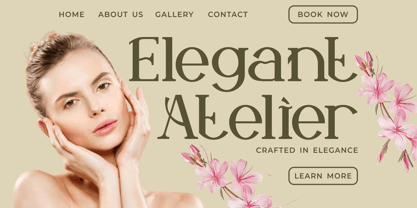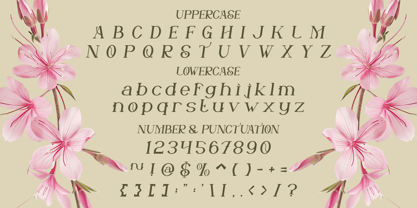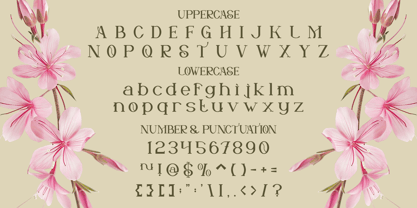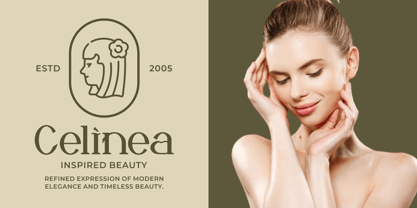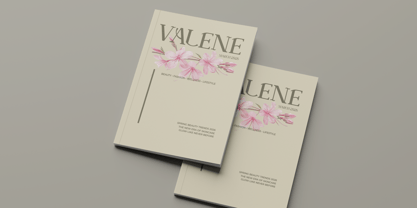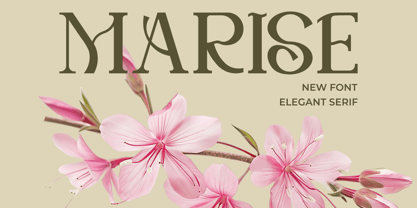
Marise
by Shanaf
The Marise Font Family was designed by Yesie Erma Yunita and published by Shanaf. Marise contains 2 styles and family package options. More about this family
Marise Elegant Serif Font combines graceful serif construction with refined artistic details. The letterforms feature tall proportions, thin-to-medium stroke contrast, and soft curved terminals that create a delicate visual rhythm. Several characters include decorative cuts and flowing serif shapes that give the font a romantic and luxurious appearance. The spacing feels balanced and airy, helping every word appear clean and sophisticated. This typeface blends modern elegance with subtle vintage influence, making it suitable for stylish branding projects. Marise Elegant Serif Font works beautifully for cosmetic logos, skincare packaging, wedding invitations, beauty editorials, boutique branding, perfume labels, and feminine business identities. The font style feels elegant, graceful, timeless, and artistic while maintaining strong readability for display layouts and promotional designs.
This typeface performs strongly in magazine headlines, luxury branding systems, product packaging, business cards, website headers, social media graphics, and invitation designs. The uppercase characters create a dramatic and classy impression, while the lowercase letters add softness and charm to the composition. Numeric characters and punctuation preserve the same refined appearance, supporting polished branding materials and editorial layouts. The serif construction gives the font a professional presence without feeling overly formal. This style suits beauty clinics, floral boutiques, wedding organizers, candle brands, jewelry businesses, organic skincare products, and lifestyle campaigns. It also works for greeting cards, book covers, posters, branding presentations, cosmetic advertisements, and elegant business promotions. The overall design feels luxurious, feminine, modern, and naturally sophisticated for visual identities that require a graceful character.